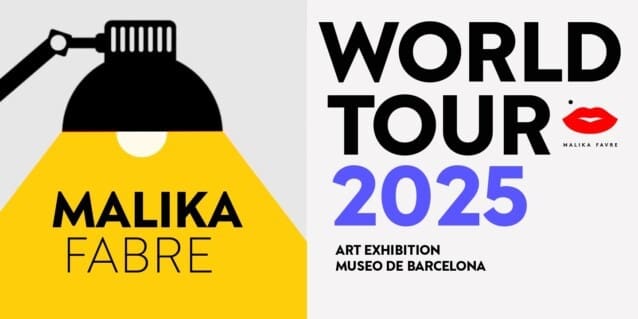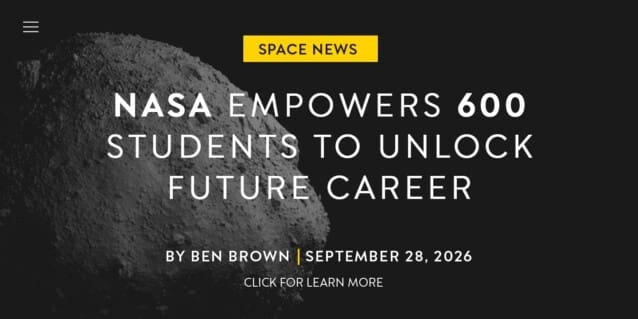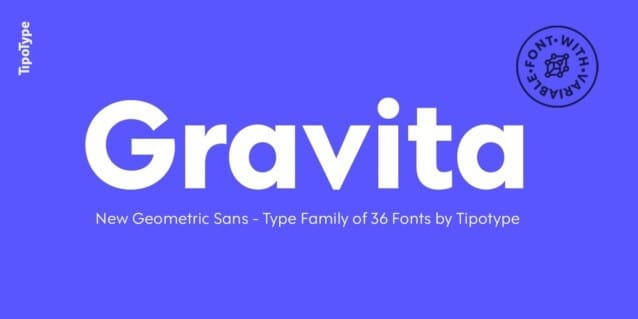
Gravita Font Family
Gravita Font Family, is a classic sans-serif font made with aesthetic perfection and the highest readability. Gravita is a typeface family that conveys security and respect by combining the solidity of its classic proportions with the strict precision of its modern profile drawing. Ideal for modern corporate communication where you need customers to perceive confidence and transparency.
It has 9 weight variables, 2 predefined sets (GEO and HUM) with their respective italics.